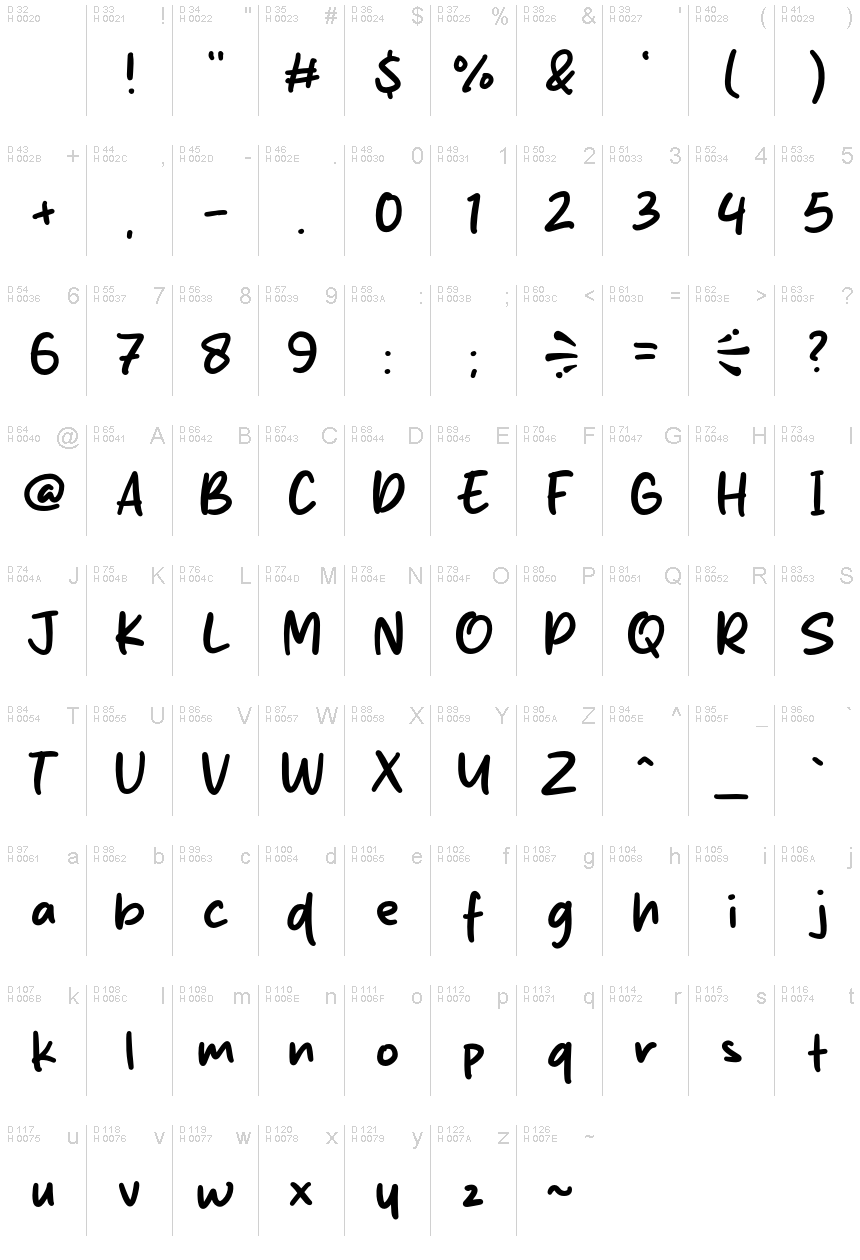
Saturday Sweat
Saturday Sweat font by MJType exudes a dynamic, handwritten charm that's both playful and energetic. Its bold strokes and lively forms make it perfect for projects that require a vibrant personality, from branding to social media graphics. This free font is well-suited for creative expressions where a relaxed yet impactful style is desired.
Ideal for use in posters, invitations, and merchandise designs, Saturday Sweat brings an element of spontaneity to each letterform. Designers looking to download a distinctive handwritten font will find its unique flair an excellent choice for adding character and warmth to their work.